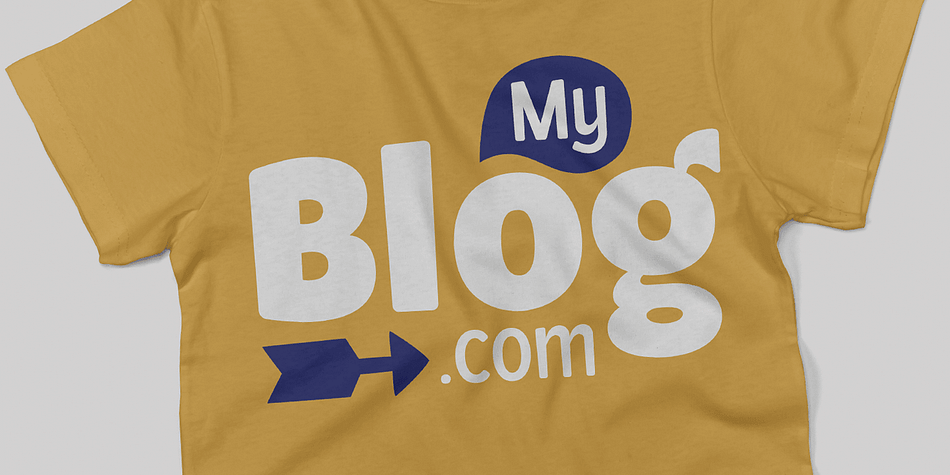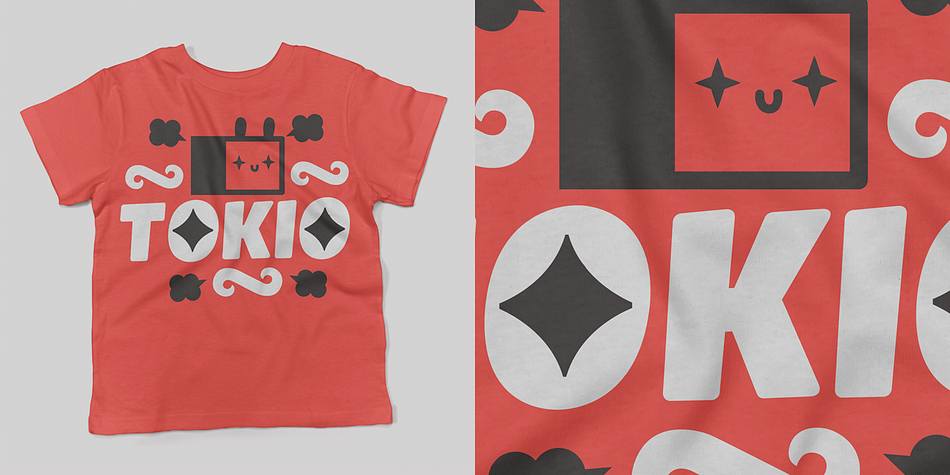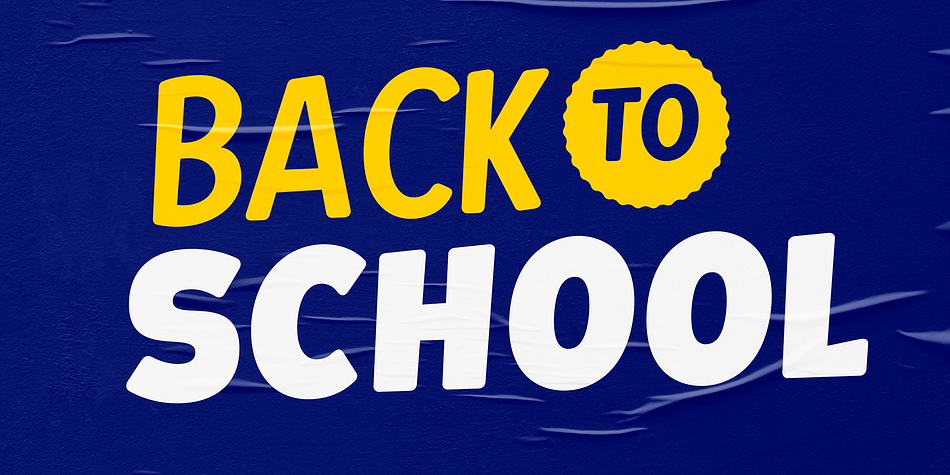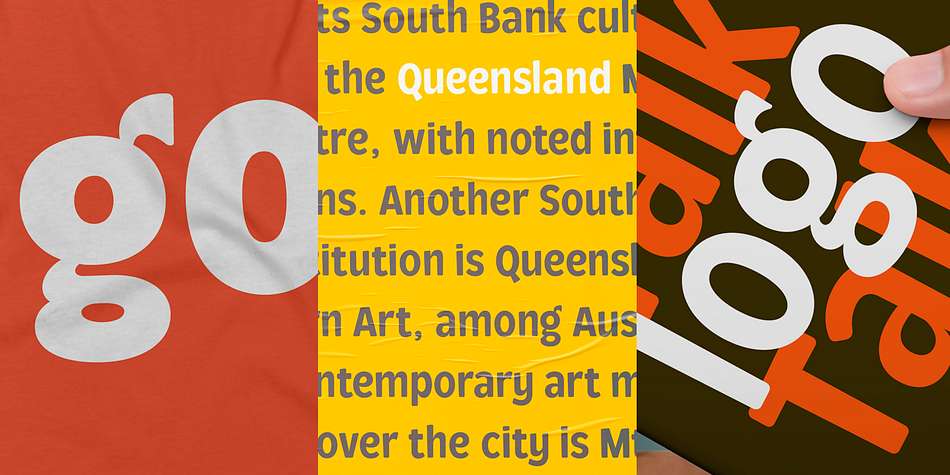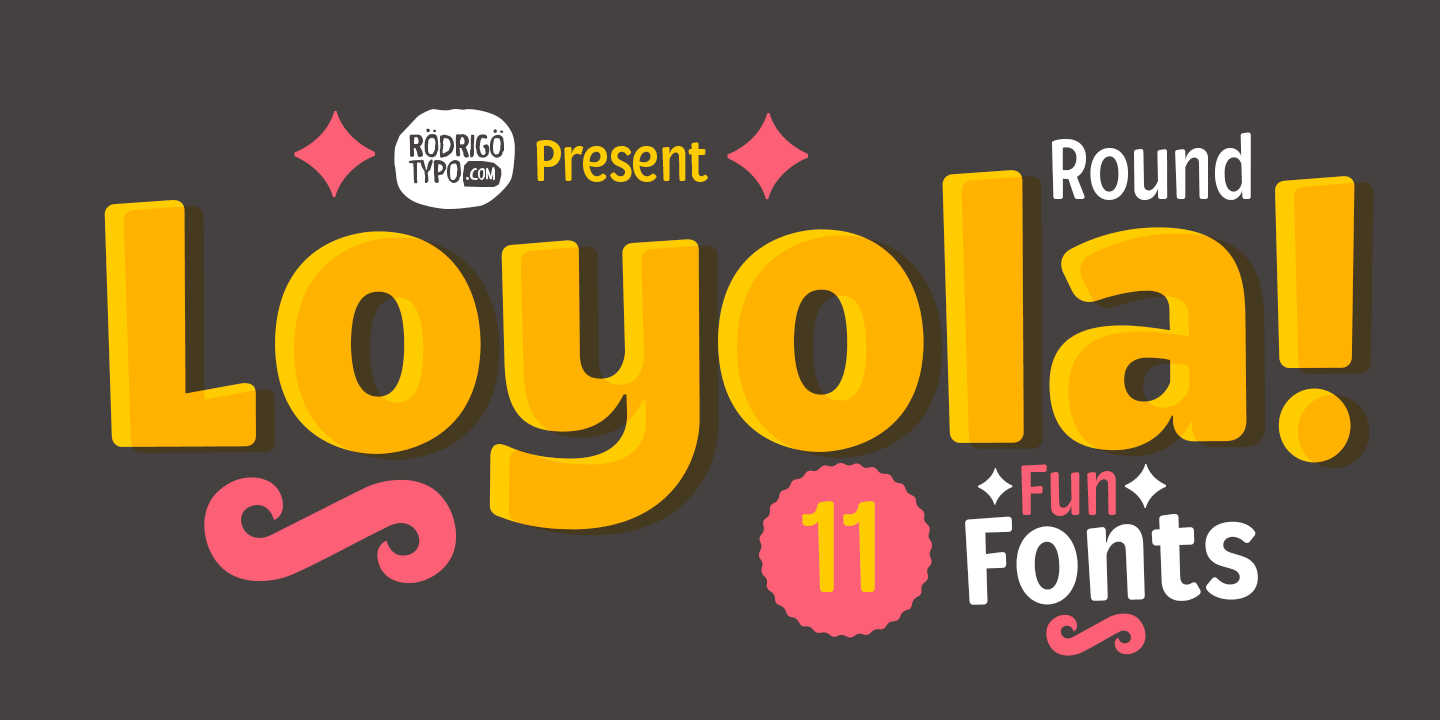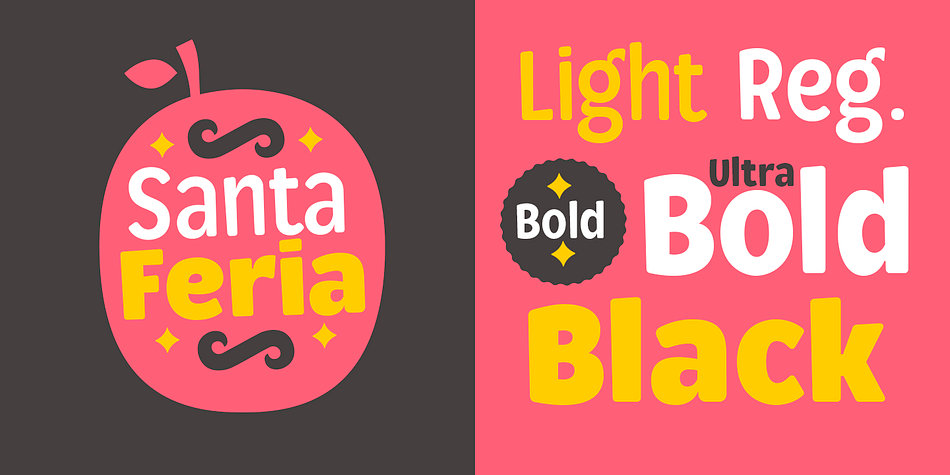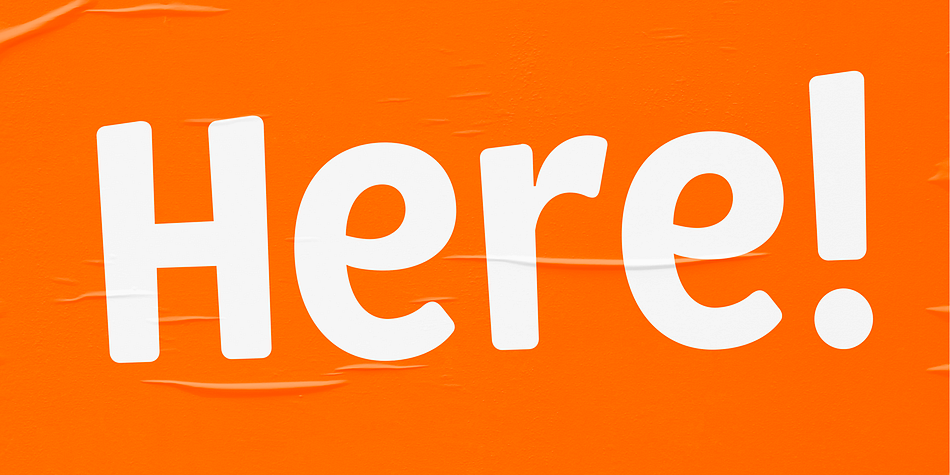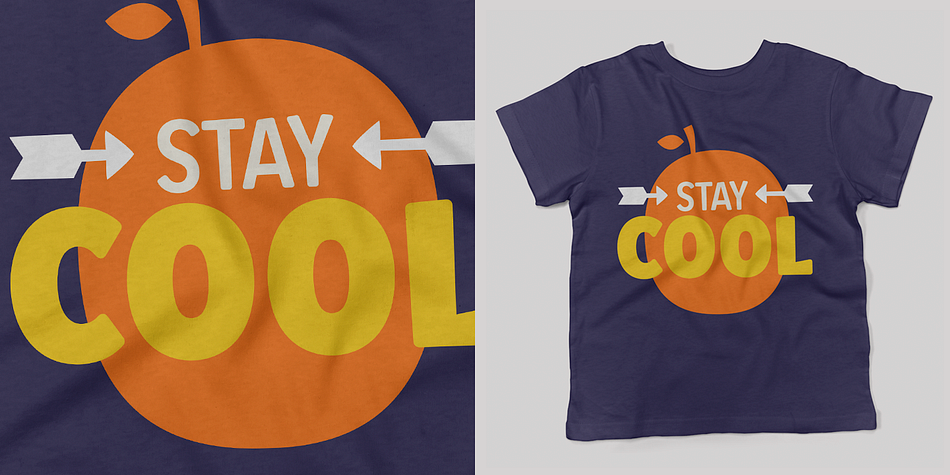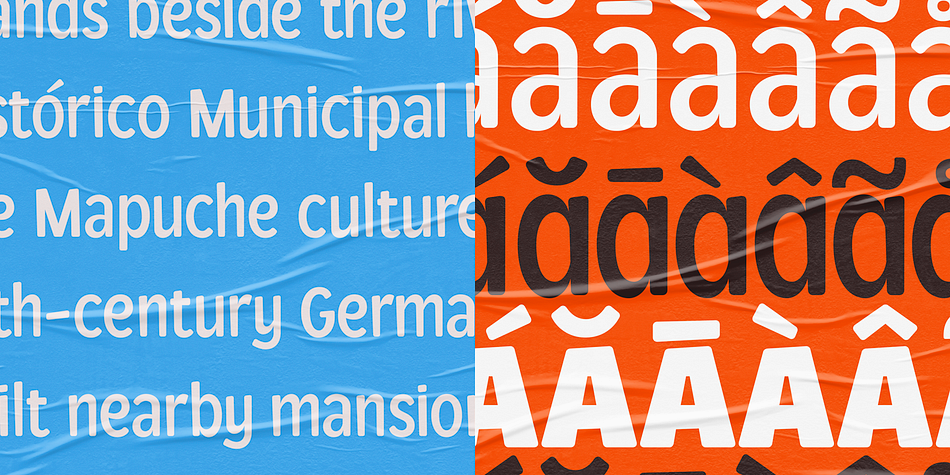
Designed by Franco Hernández and Rodrigo Araya Salas, Loyola Round Pro is a comic and dingbat font family. This typeface has eleven styles and was published by Rodrigo Typo.
Loyola Round Pro is a super fun family. Its weights comprise 5 weights from Light to Black. The family also includes a set of dingbats.
Loyola Round Pro is suited well for short texts, children’s titles, as well as clothes or logos.